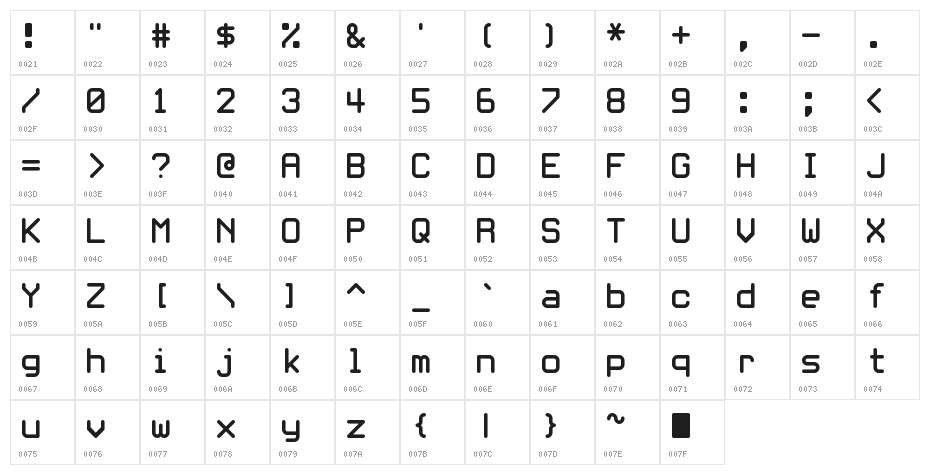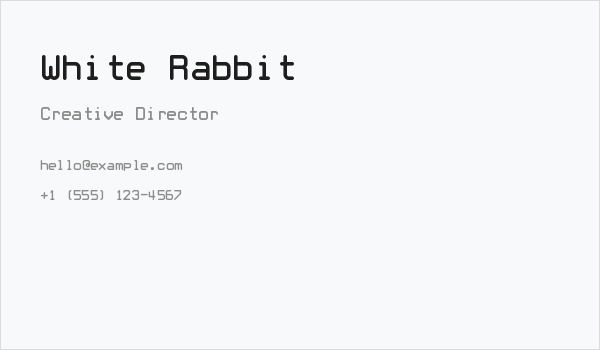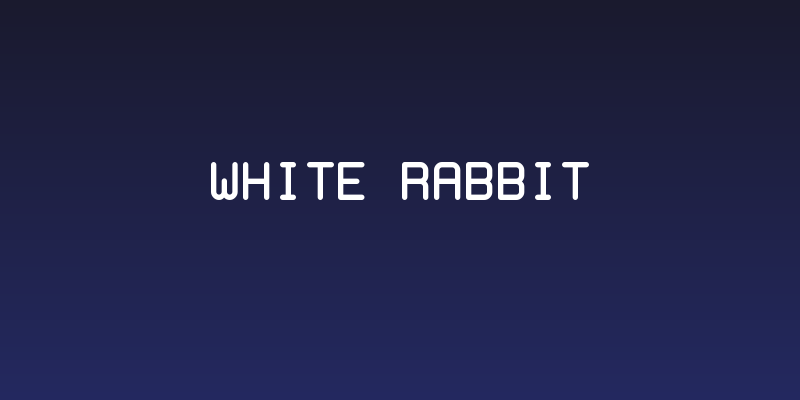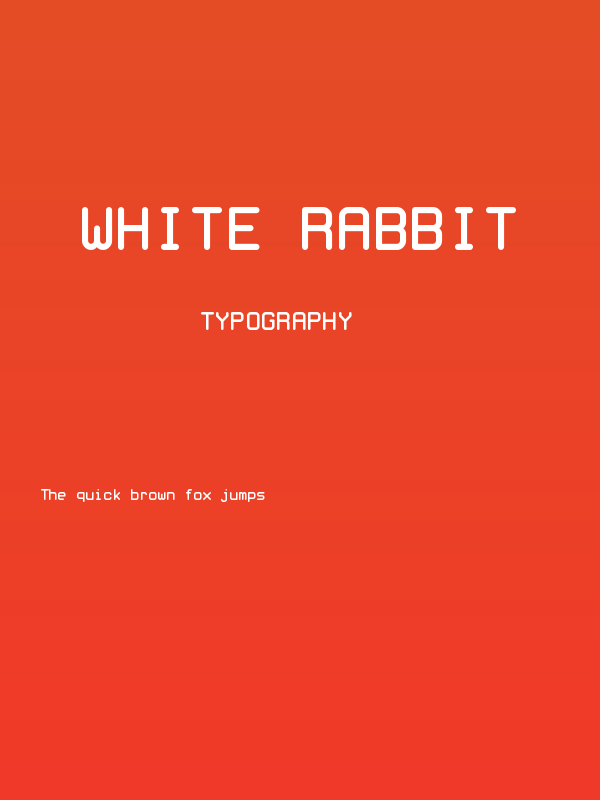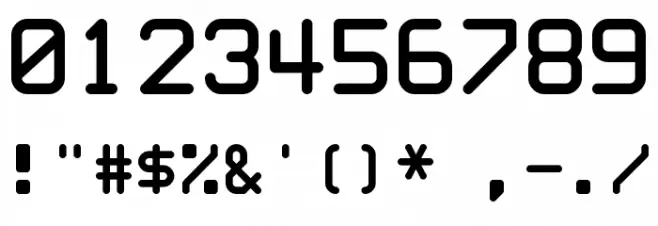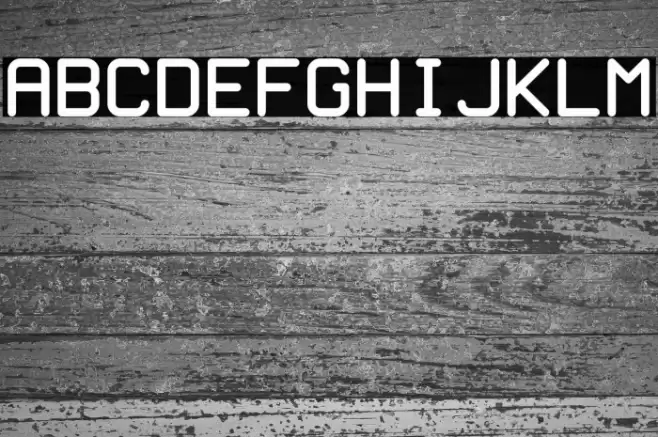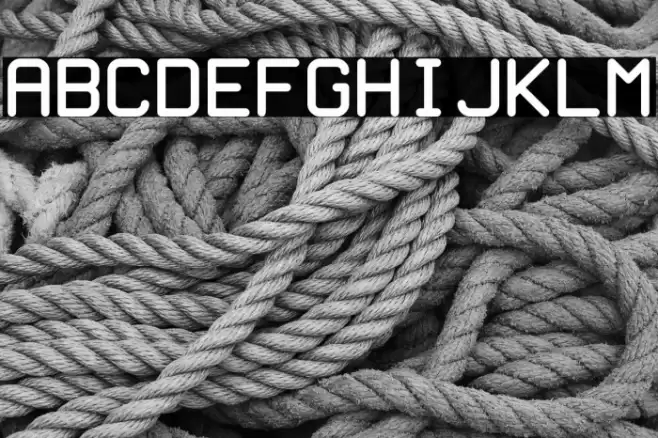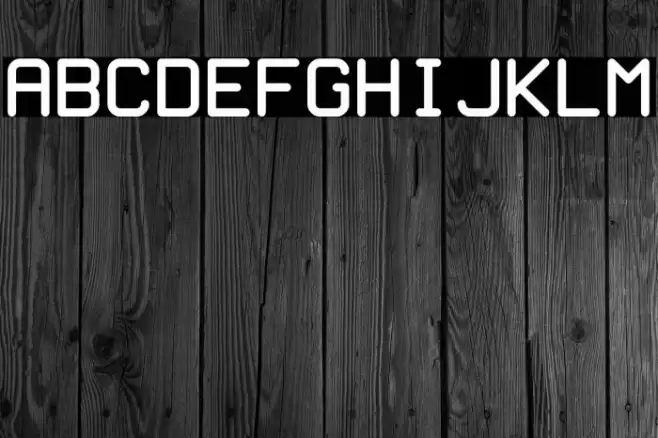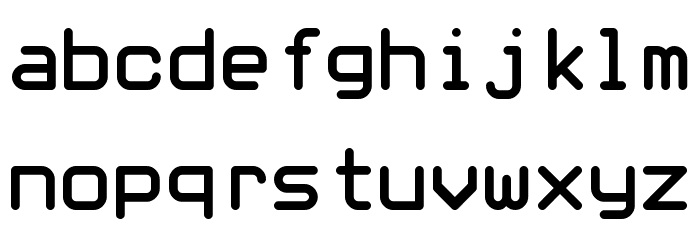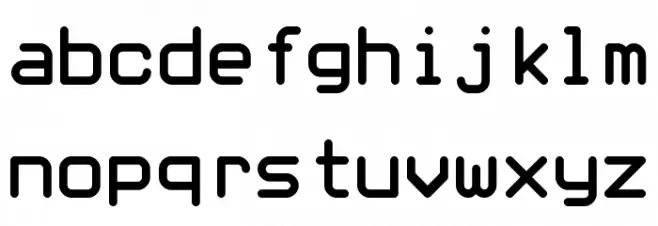
White Rabbit Font
White Rabbit Description
This font features a modern, geometric design with rounded edges and a monospaced structure. The characters are uniform in width, giving it a clean and organized appearance. The uppercase and lowercase letters maintain a consistent height, enhancing readability. The numerals and special characters are designed to match the overall aesthetic, providing a cohesive look across all elements. The font's simplicity and clarity make it suitable for a variety of applications, from digital interfaces to print media.
| Proposed Projects | Ideal for coding environments, technical documentation, digital interfaces, and minimalist design projects. |